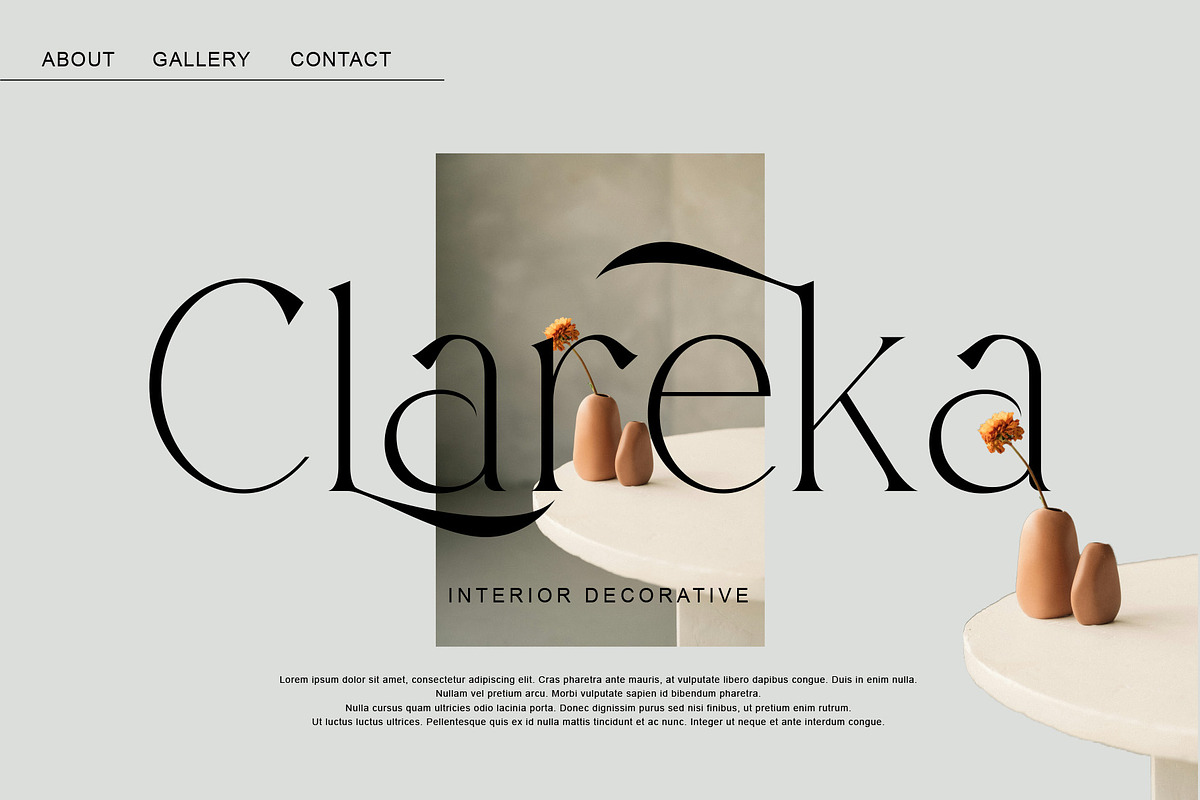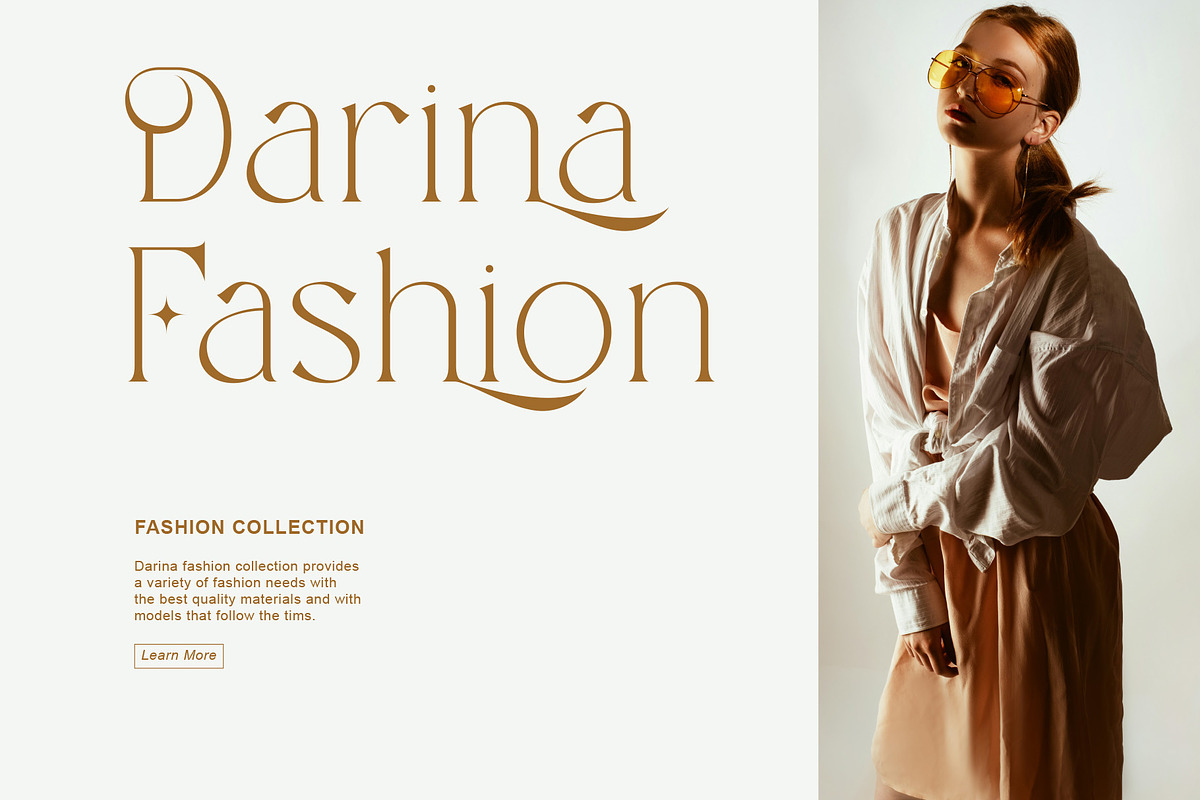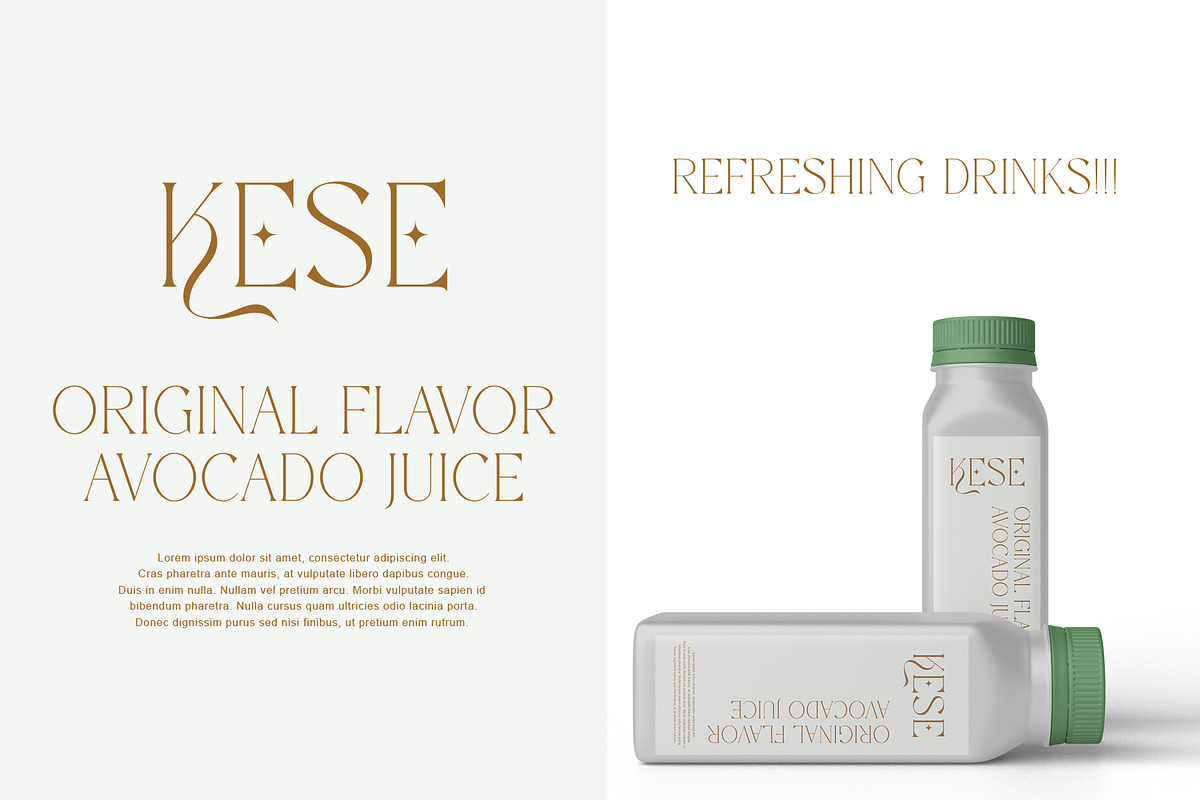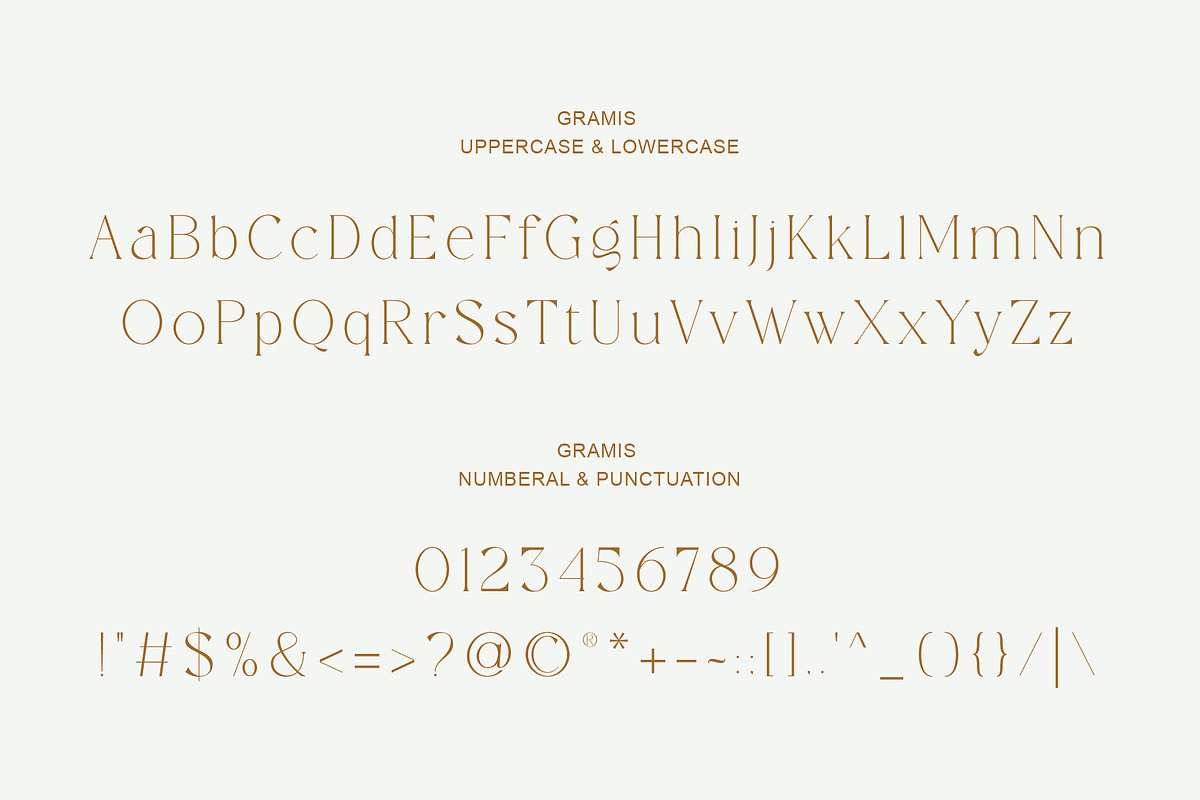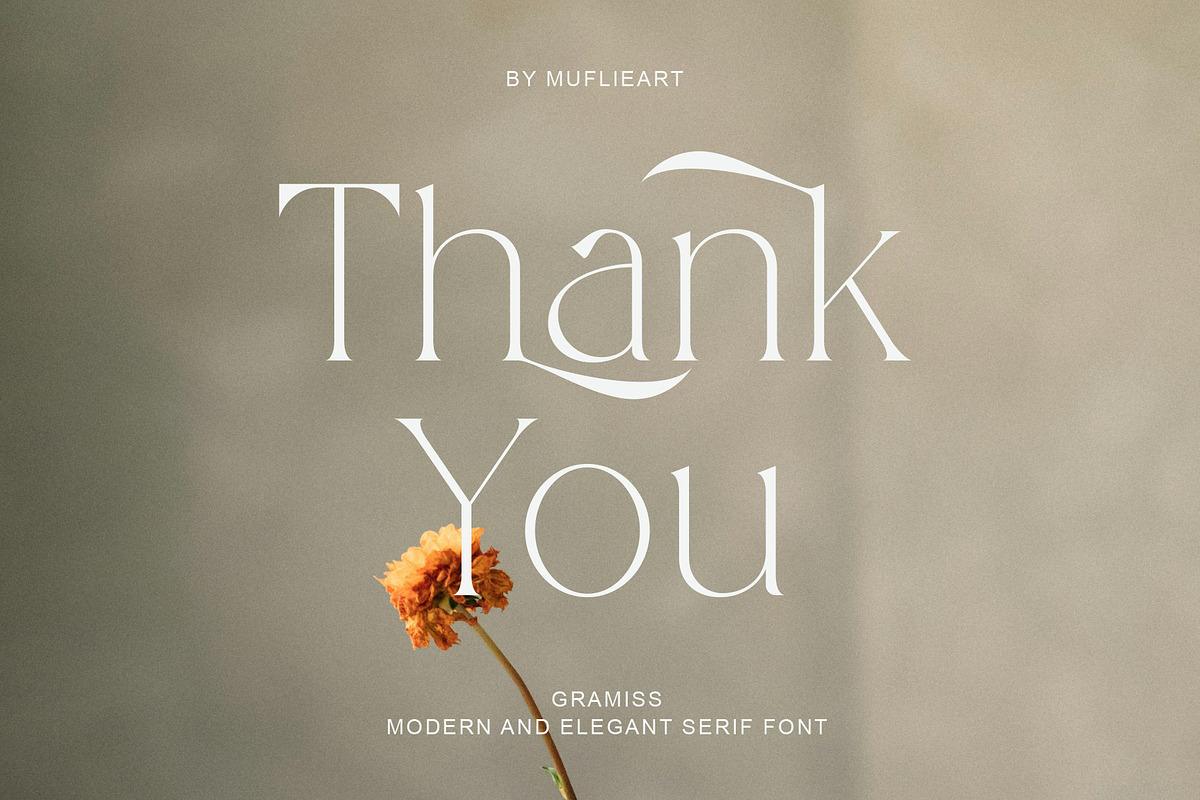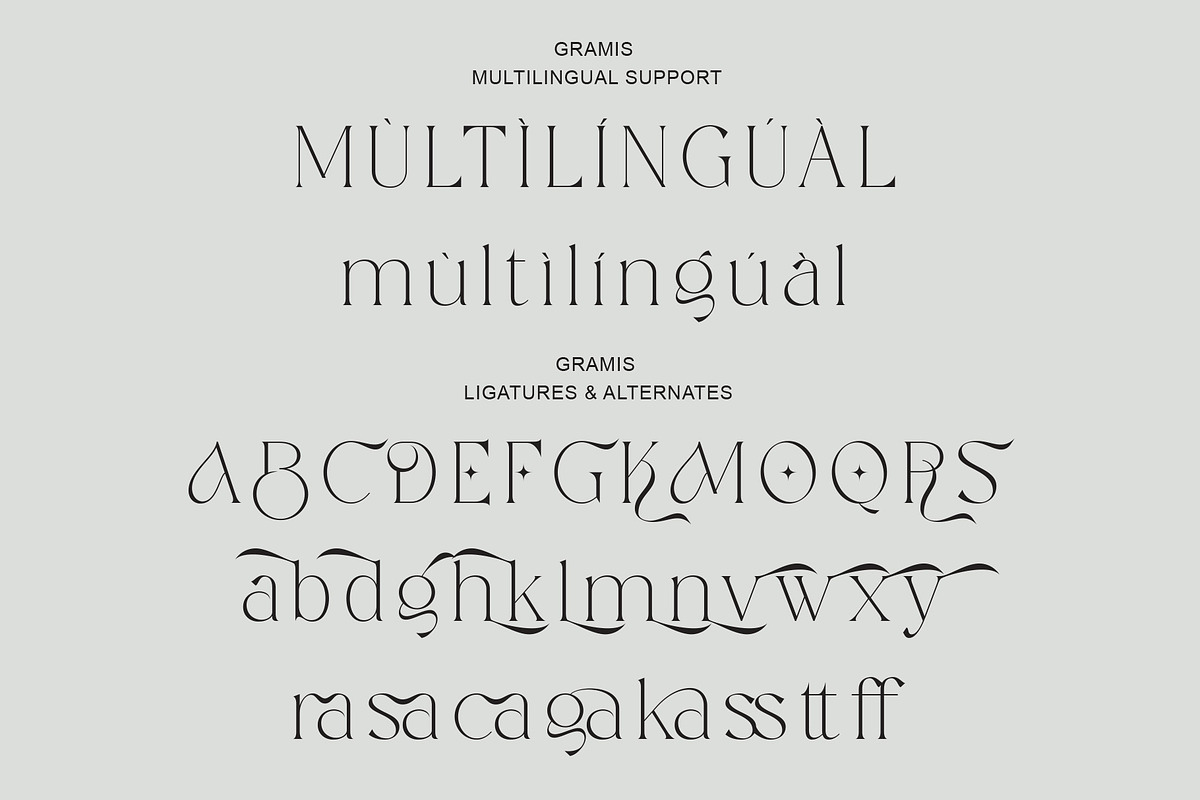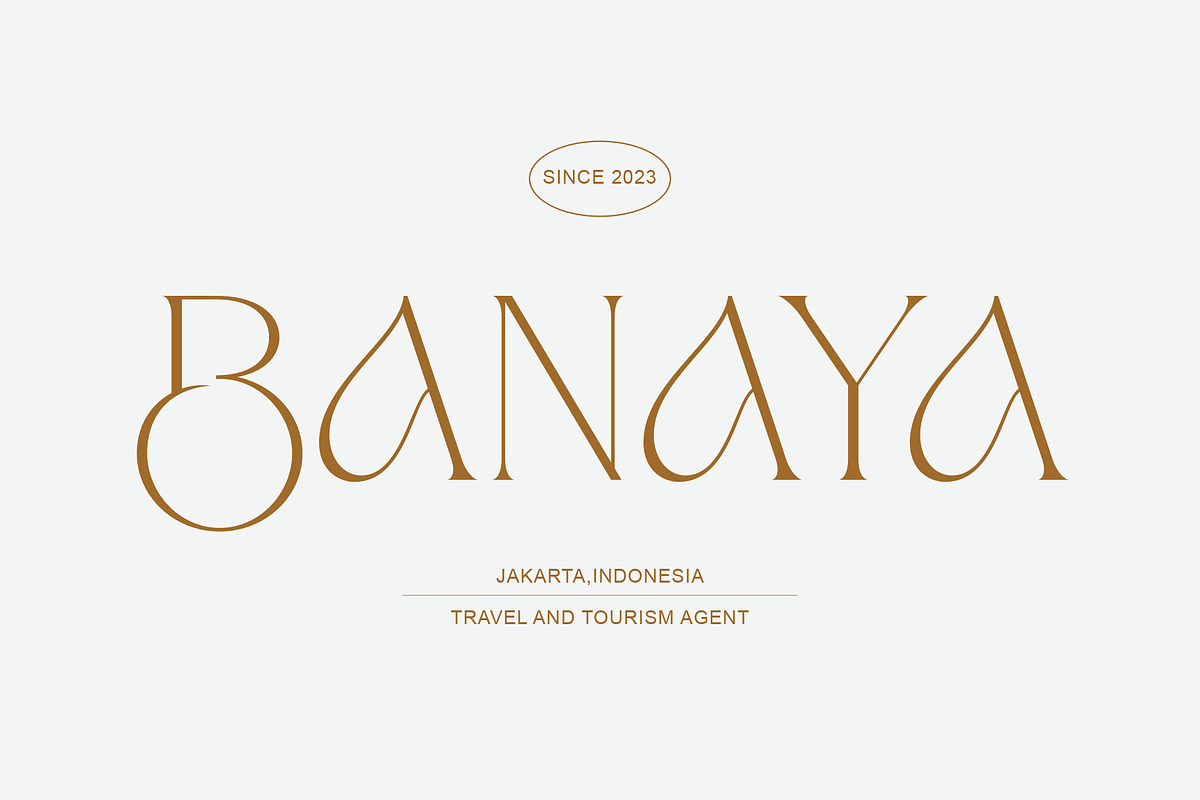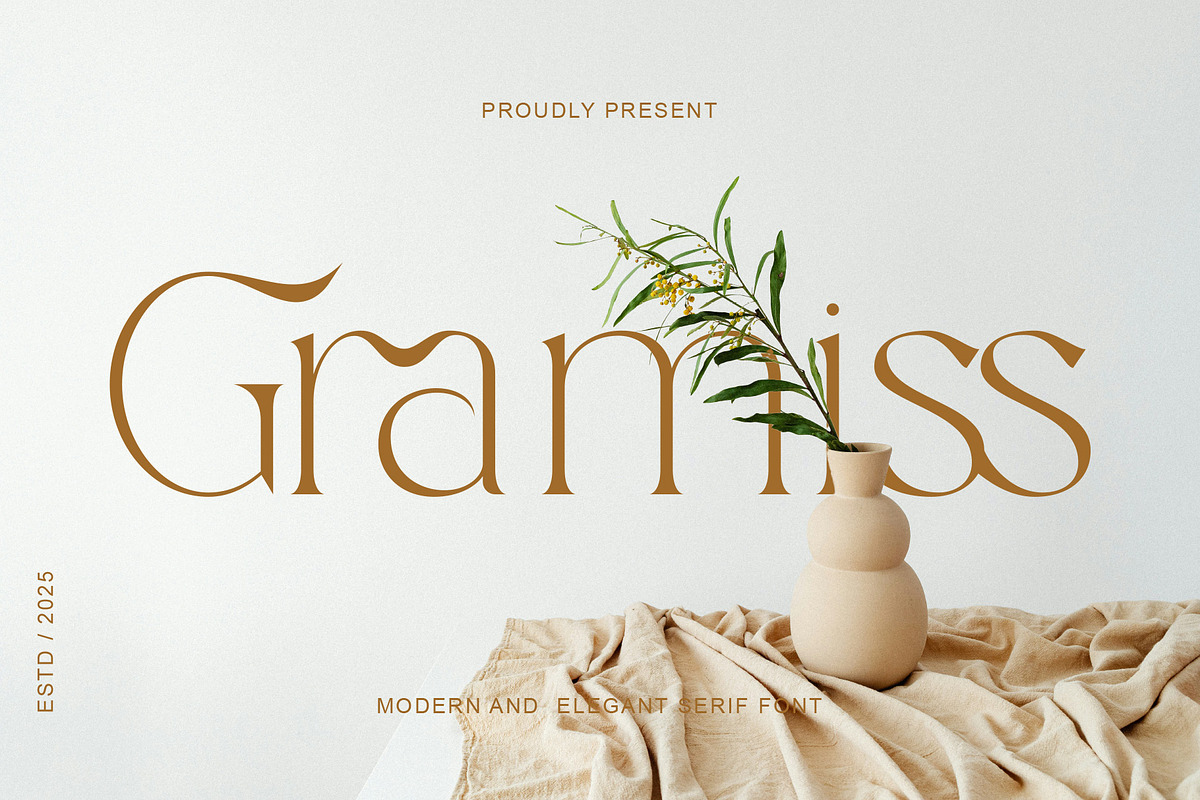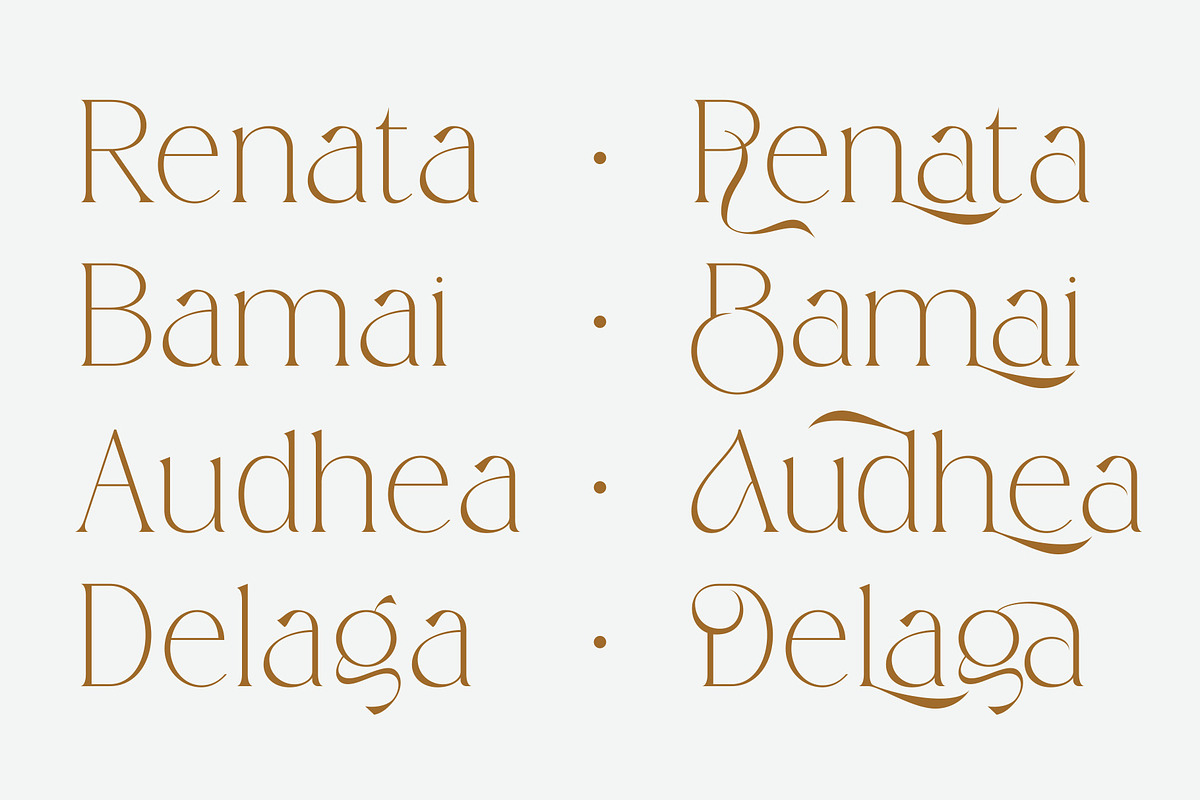
Gramiss
Introducing Gramiss An elegant, beautiful and modern serif. With its modern and minimalist appearance, Gramiss brings a luxurious, classy and clean style to your projects such as websites, modern logos, branding identities, social media quotes, wedding stationery, magazines and various other needs!
Gramiss displays unique and classy capital letters A to Z and is also equipped with alternative letters and unique ligatures so that Gramiss is a beautiful font that can be adapted to various projects and jobs that you want.